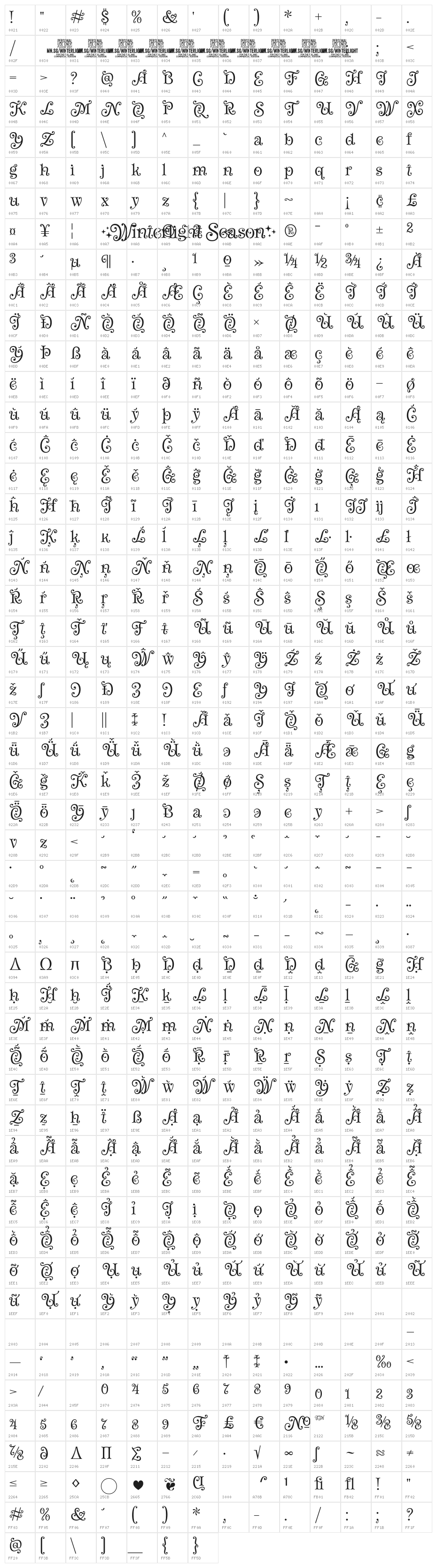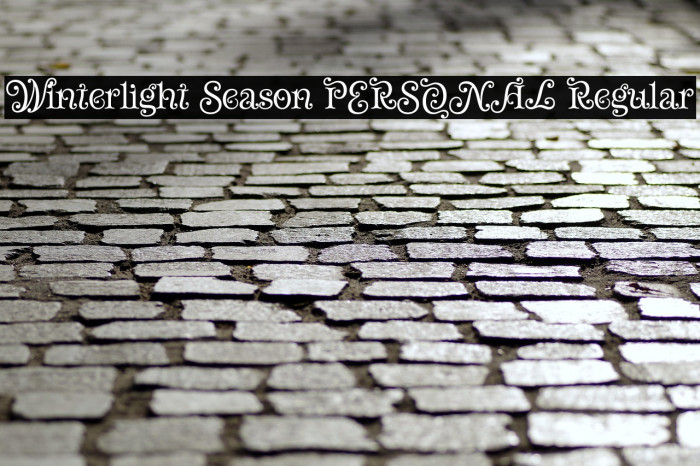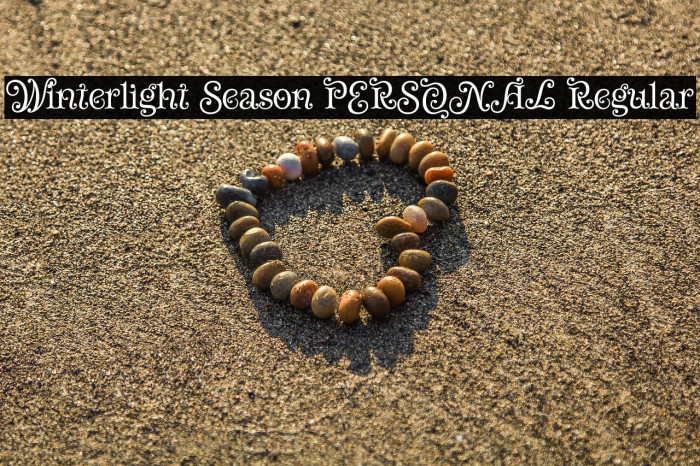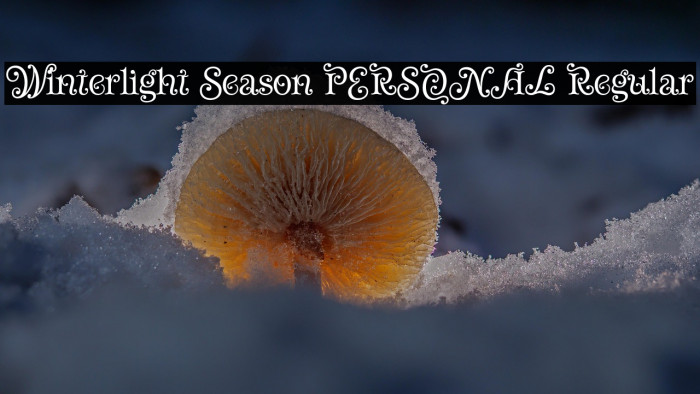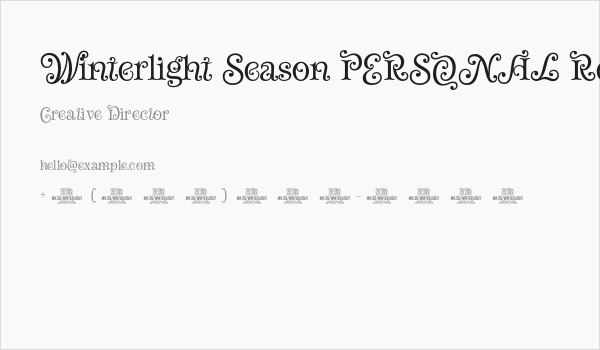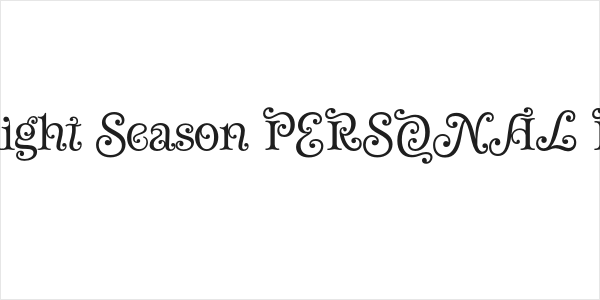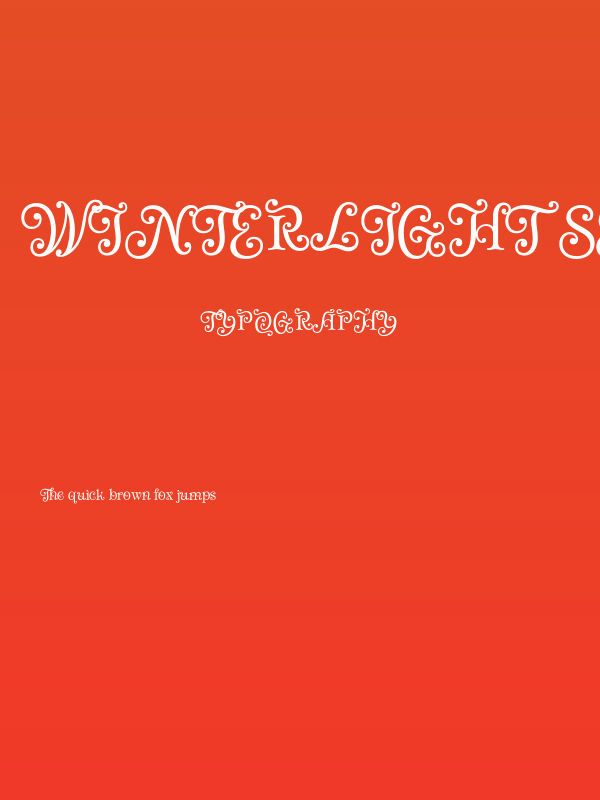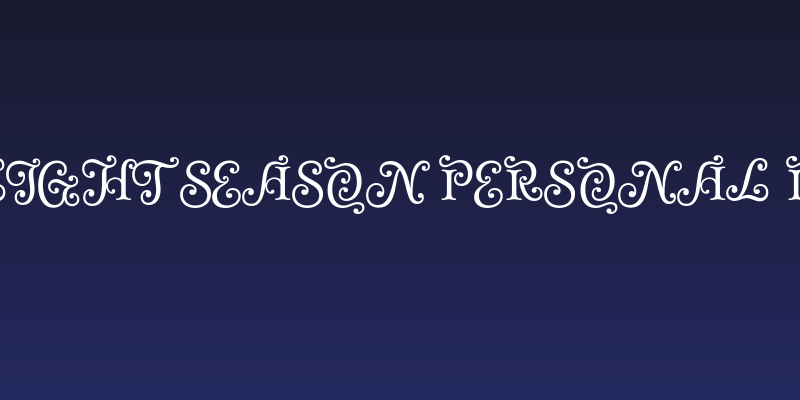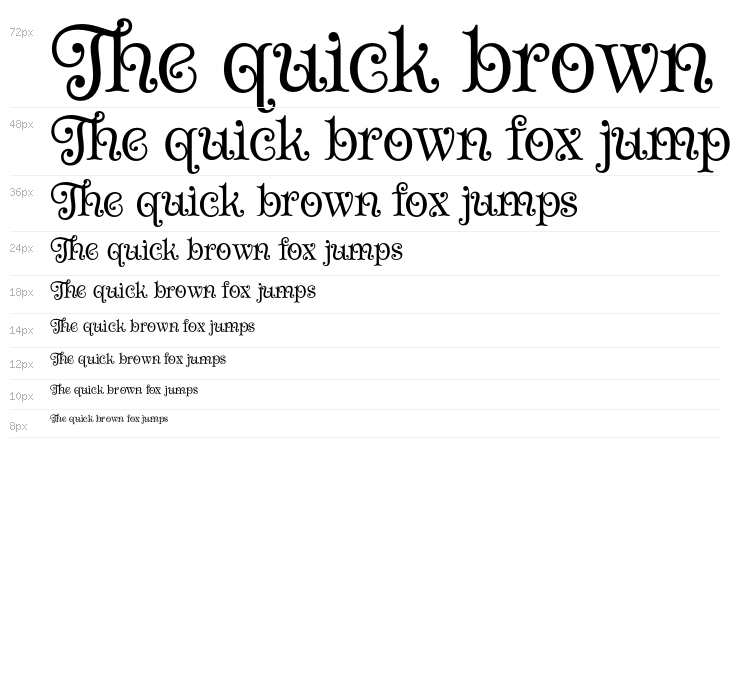
Winterlight Season PERSONAL Regular Font
Winterlight Season PERSONAL Regular Description
This font features a whimsical and decorative style with intricate curls and loops that give it a playful and artistic appearance. The uppercase letters are adorned with elaborate swirls, while the lowercase letters maintain a more subtle yet still ornate design. The numerals and special characters continue this theme, making the font suitable for creative and festive applications. Its unique style is reminiscent of a fairy tale or fantasy theme, making it ideal for projects that require a touch of magic and elegance.
| Use Case | Headlines, Logos, Decorative text |
| Proposed Projects | Ideal for invitations, greeting cards, fantasy-themed posters, and decorative signage. |